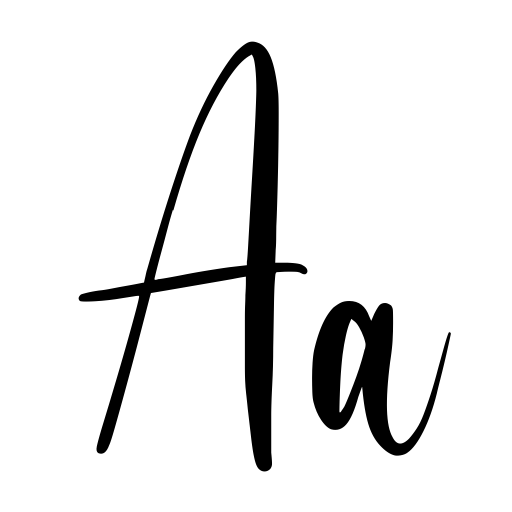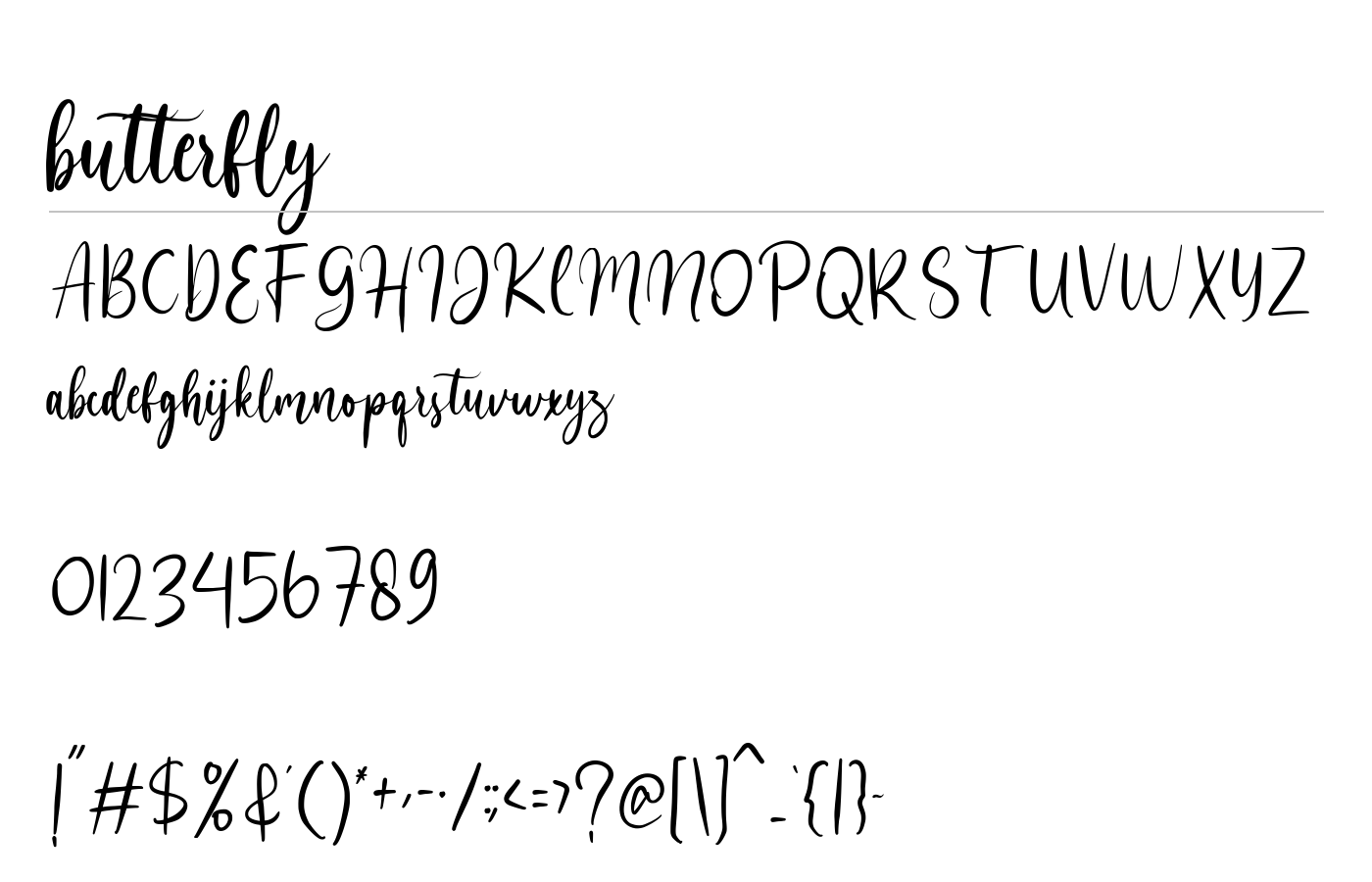
Butterfly Font is a charming script typeface with a lively yet elegant feel, featuring fluid, hand-drawn letterforms that combine smooth curves with playful flourishes. Its moderate weight and slightly condensed style make it perfect for adding a personal, approachable touch to branding, invitations, and creative projects where a warm, friendly vibe is desired. Versatile and graceful, this font shines in headline and display uses, lending a stylish, handwritten quality that feels both modern and inviting.
butterfly Font
About butterfly Font